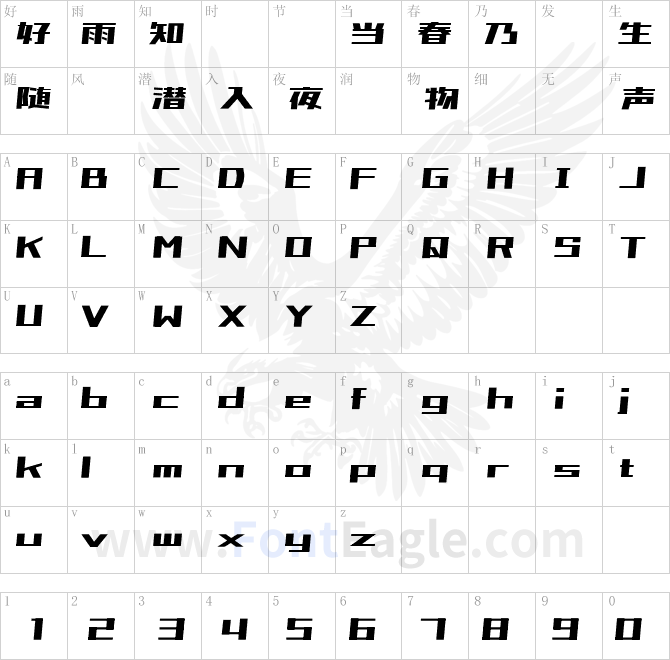
851ゴチカクットGkktt酷黑体 is a great font, widely used in graphic design, single-page menu design, poster design and other fields, and is deeply loved by designers.851ゴチカクットGkktt酷黑体 download.